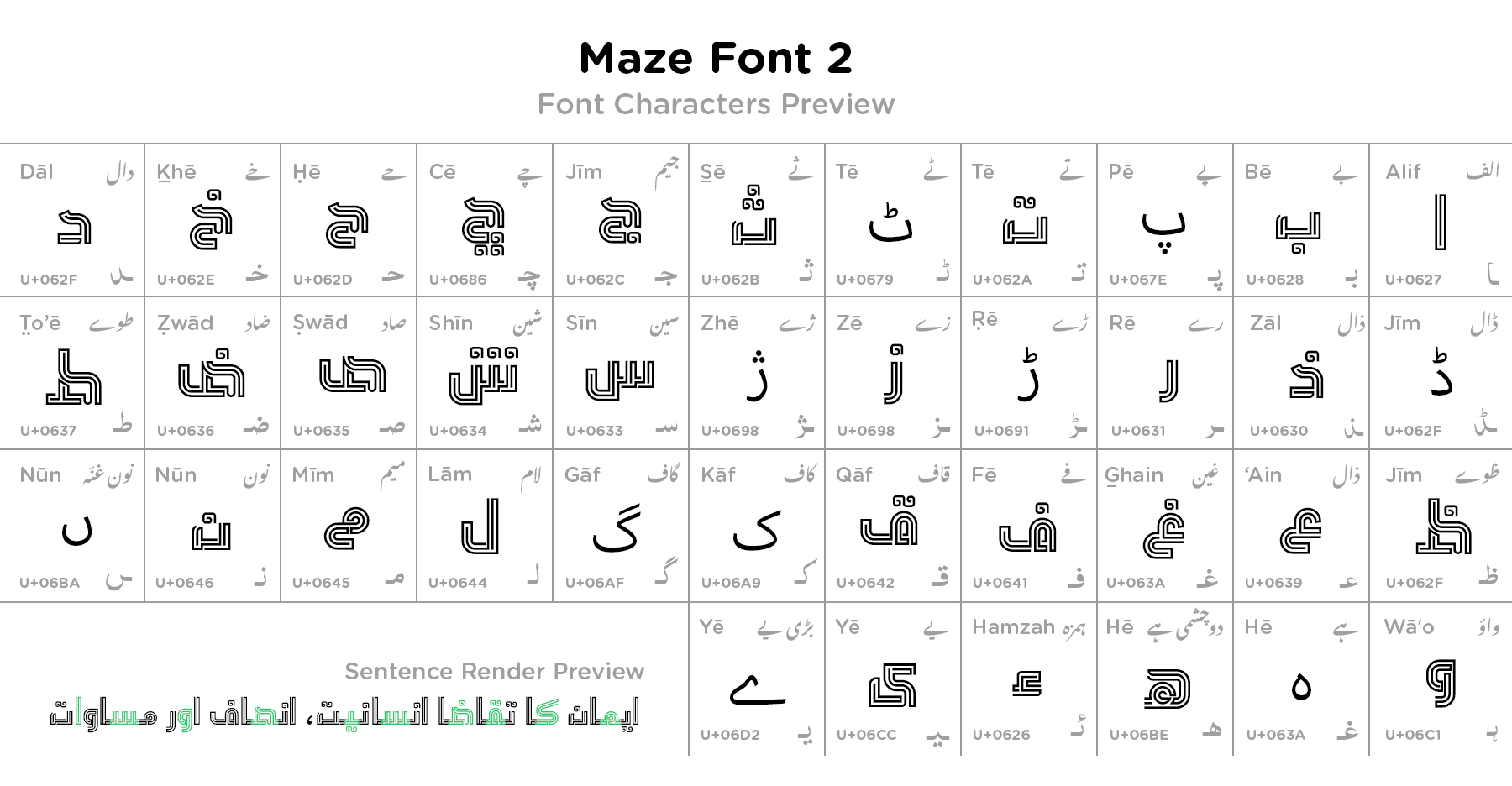
Maze font 2
Designed by Mohammed Abd El Khalik, Maze Font 2 is a unique outline Arabic font, officially released in 2016 under the trademark of Behance.net. This modern gaming-style font has letterforms crafted with firm geomaterial parameters. Maze Font 2 has wide usage in logo designing, games, packaging, tech-related posters, and thumbnails—anything needing a little futuristic flair. The font has limited characters, consisting of only 140 symbols and letters with a glyph count of 141. This indicates that the font may not support many languages, mainly Arabic and Latin. It got its name from its intricate look, representing a labyrinth of letters, especially dots. Each character is made using three parallel lines of varying thickness. Some characters have entirely open endings, while others have partially open endings. This creates a unique and eye-catching effect. The gaps between the lines play a crucial role in defining the shape of the characters, creating a sense of negative space and visual interest. The lines’ thickness and spacing appear consistent throughout the alphabet, offering a uniform and clean look.